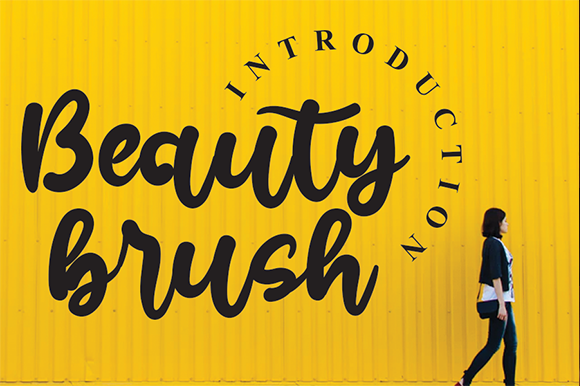
Welcome to the captivating world of Beauty Brush Font, where elegance and charm intertwine. This exquisite script font, meticulously crafted by the talented artisans at andikastudio, is a testament to the power of creativity. Its enchanting strokes, reminiscent of a brush pen's graceful dance upon paper, evoke a sense of warmth and authenticity that will leave you spellbound.
Imagine your words adorned with the alluring charm of Beauty Brush Font. Whether you seek to create a heartfelt resume that showcases your unique personality or design captivating social media posts that demand attention, this font will elevate your creations to new heights. Its delicate curves and graceful flourishes will transform ordinary text into an extraordinary expression of your individuality.
As you explore the vast collection of fonts, let Beauty Brush Font capture your heart. Its versatility knows no bounds, making it the perfect choice for a multitude of projects. From elegant wedding invitations that celebrate the beginning of a love story to whimsical birthday cards that bring joy to any occasion, this font will add a touch of magic to every endeavor.
Indulge in the beauty of Beauty Brush Font, and let its enchanting strokes inspire your creativity. Your words will dance across the page with an irresistible charm, leaving a lasting impression on all who behold them. Embrace the power of this captivating font and elevate your communication to new heights.